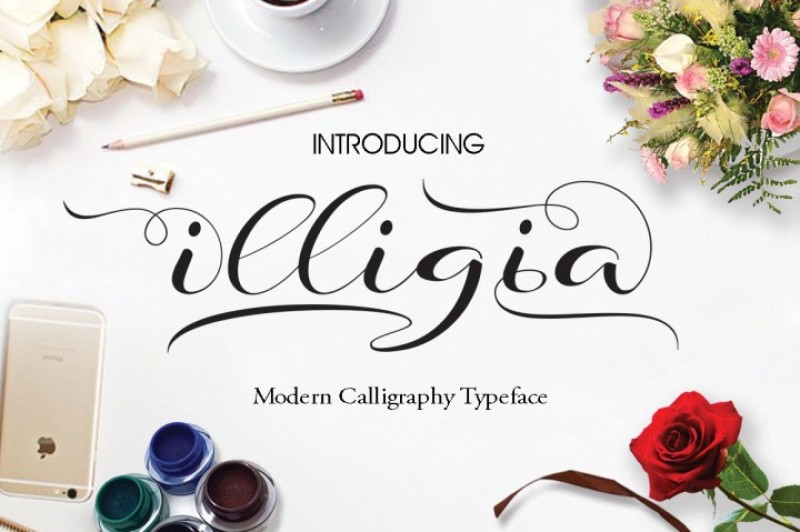
Our sixth Christmas freebie is ready! Download this elegant Illigia Font by media studio completely FREE of charge. A huge thank you to media studio for allowing us to share their brilliant product with you for free. Be sure to check out other products offered by visiting their complete store - click here. As with all of our Christmas freebies, this product comes with our Complete License. The same as with all our paid goods.  -------------------------------------------------------------------------------------------- INTRODUCING the newest else is so beautiful and very elegant that are designed to compliment each other perfectly. Illigia script : A script that is so beautiful with gorgeous grounds, and furnished with fine lines are perfect for use many purposes. such as title, signature, logo, correspondence, wedding invitations, letterhead, signage, labels, newsletters, posters, badges, Branding, Greeting Cards, etc. It comes with a handy set of OpenType Contextual Alternates, Stylistic Alternates, stylistic sets, ligatures and swashes and all to add an authentic touch to your design. Illigia script : features 432 glyphs and This is all the code with Unicode PUA - allows people who do not have the software to access specific glyph alternately too :) - Mac users can use Font Book, and Windows users can use the Character Map to view and copy one additional character to paste into your a text editor / favorite applications. Also supports in pragram : Adobe Illustrator, Adobe Photoshop, Adobe InDesign, Corel Draw X version, Microsoft Word. Language Support : Albanian, Basque, Breton, Chamorro, Danish, Dutch, English, Faroese, Finnish, French, Frisian, Galician, German, Icelandic, Italian, Malagasy, Norwegian, Portuguese, Swedish. The Features of this fonts is: Stylistic Sets. Files included : Illigia script otf Illigia script ttf Illigia script Web Fonts (eot, svg, woff) Features Basic Latin A-Z and a-z Numbers Symbols
Illigiascript
FREE Illigia Script Font